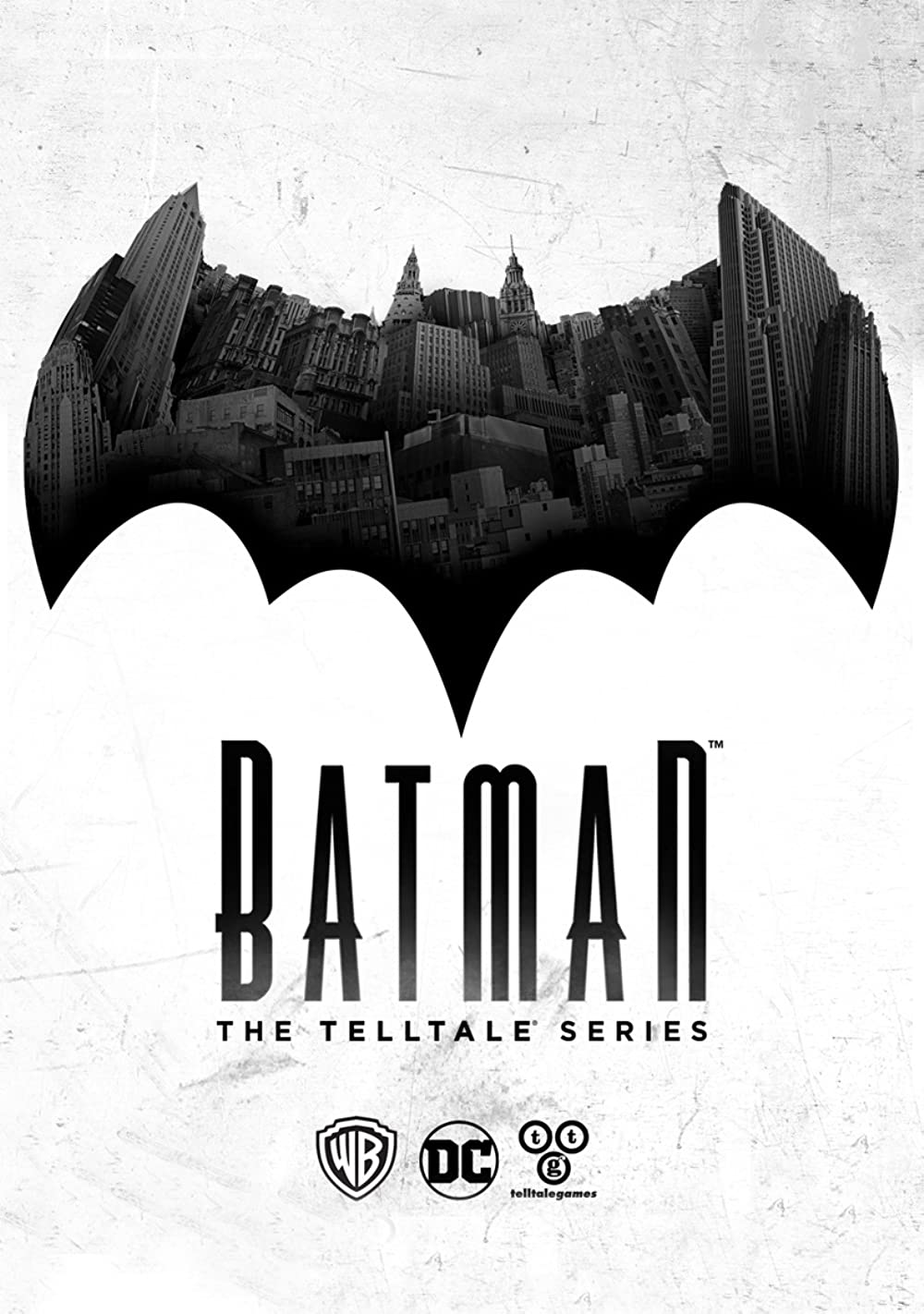
Batman The Telltale Series Font
Action & AdventureBatman: The Telltale Series is a 2016 episodic point-and-click graphic adventure video game developed and published by Telltale Games and distributed by Warner Bros. The game features the DC Comics character Batman, as he balances his dual identity as billionaire Wayne Enterprises owner and masked vigilante.
The Batman: The Telltale Series game logo on the cover was based on the font Valencia, a condensed typeface created by Joe Prince. You can learn more about the font here.